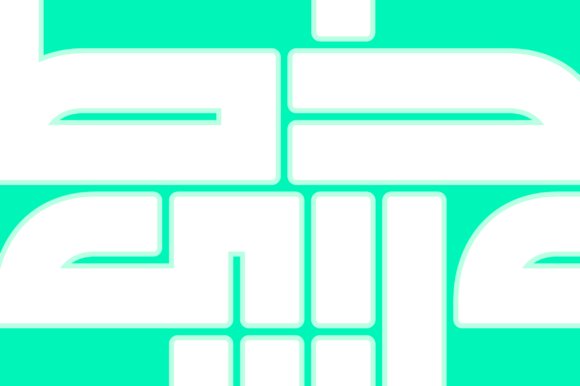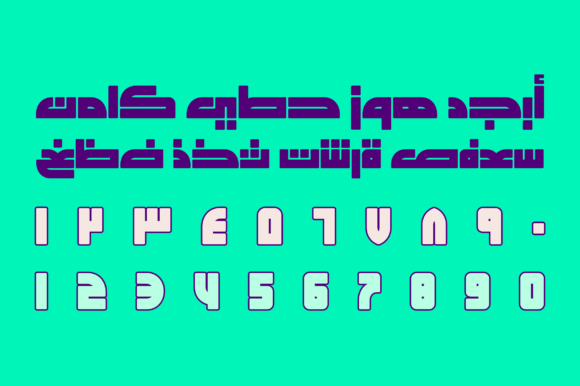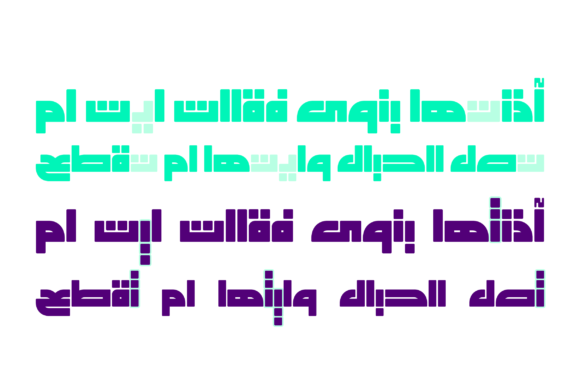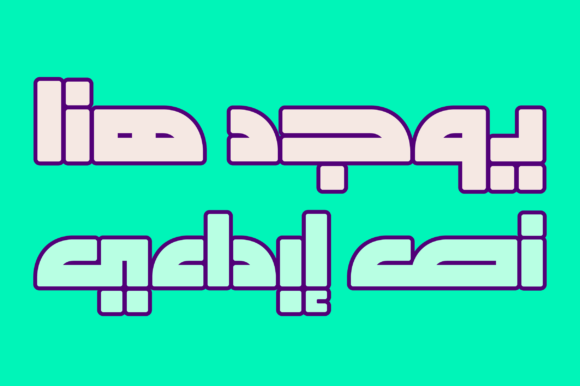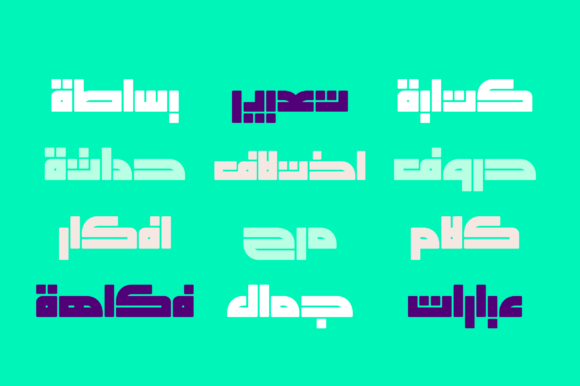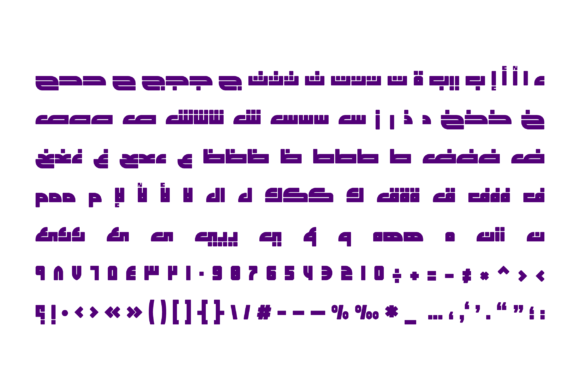
Discover the Unique Charm of Enferad: A Geometric Arabic Font
Are you a designer or crafter looking for a distinctive Arabic font to elevate your creative projects? Look no further than Enferad, a stunning non-cursive Arabic font that boasts a geometric structure and smooth, rounded edges. In this article, we’ll delve into the features and benefits of Enferad, and explore how it can be used to enhance your designs.
What is Enferad?
Enferad is a carefully crafted Arabic font designed specifically for display purposes, including web design, advertising, and creative titling. Its unique geometric structure and smooth, rounded edges give it a distinctive look that sets it apart from other Arabic fonts. With a single weight, Enferad is perfect for designers who want to add a touch of elegance and sophistication to their projects.
Key Features of Enferad
- Geometric Structure: Enferad’s geometric structure gives it a modern and sleek look that’s perfect for designs that require a touch of sophistication.
- Smooth-Rounded Edges: The smooth, rounded edges of Enferad add a touch of elegance and refinement to any design.
- Non-Cursive: As a non-cursive font, Enferad is easy to read and understand, making it perfect for display purposes.
- Single Weight: With a single weight, Enferad is simple to use and versatile enough to be used in a variety of design contexts.
How to Use Enferad
Enferad is perfect for a wide range of design applications, including:
- Web Design: Add a touch of elegance to your website with Enferad, perfect for headings, titles, and creative text elements.
- Advertising: Make your advertising stand out with Enferad’s unique geometric structure and smooth, rounded edges.
- Creative Titling: Use Enferad to add a touch of sophistication to your creative projects, including posters, brochures, and more.
Enferad offers a range of benefits for designers and crafters, including:
- Unique Design: Enferad’s geometric structure and smooth, rounded edges make it a standout font that’s sure to elevate your designs.
- Ease of Use: With a single weight and non-cursive design, Enferad is easy to use and versatile enough to be used in a variety of design contexts.
- Language Support: Enferad supports the Arabic language, making it perfect for designers and crafters working with Arabic text.